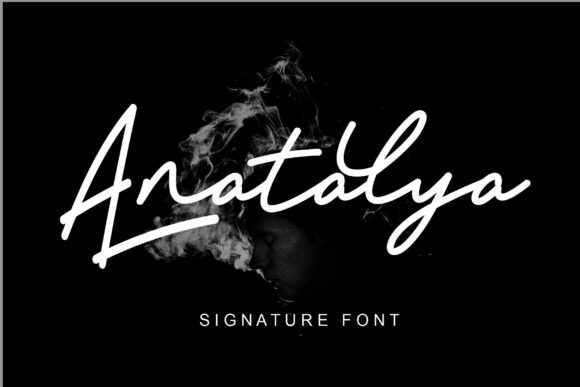
Prepare yourself for a calligraphic adventure that will leave you breathless. Introducing Anatalya, the exquisite handwritten font, meticulously crafted to become your project's secret weapon. Its inherent charm and contemporary flair will transform your words into captivating works of art.
With Anatalya's graceful curves and elegant strokes, you'll create wedding invitations that exude an air of timeless beauty. Its versatility extends beyond special occasions, making it an ideal choice for branding, logos, and any project that demands a touch of sophisticated chic.
Indulge in the allure of Anatalya and witness your projects soar to new heights. It's more than just a font; it's an enchanting journey that will leave an indelible mark on your creative endeavors.